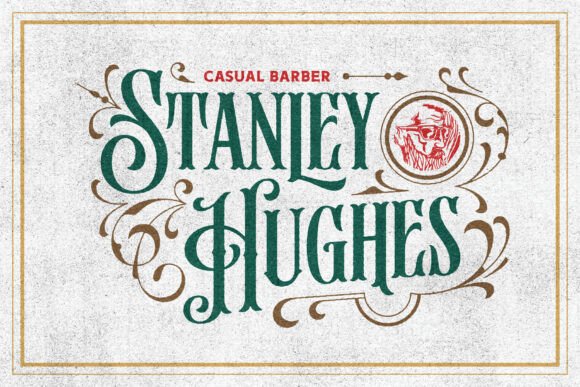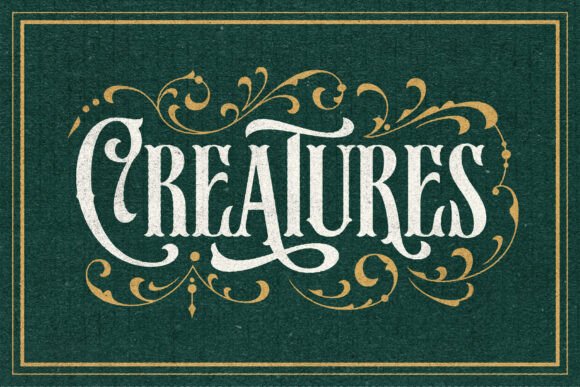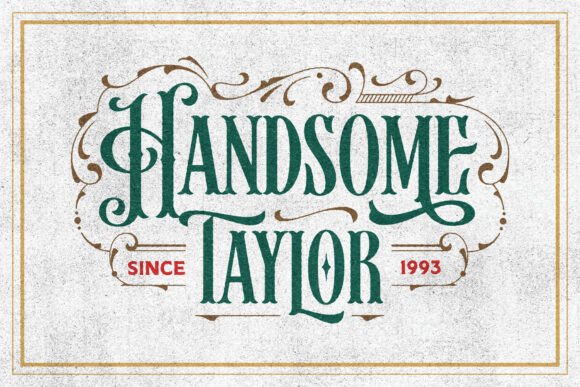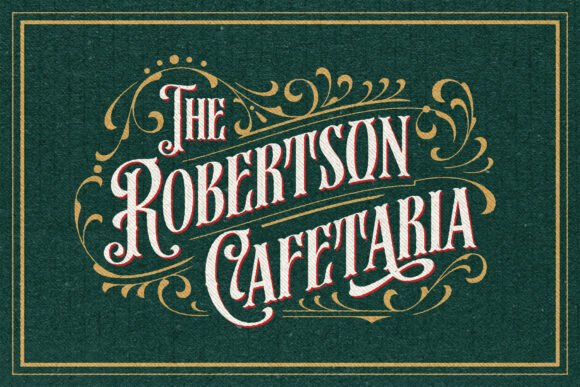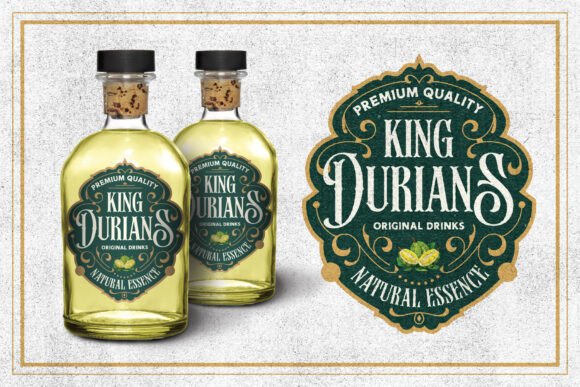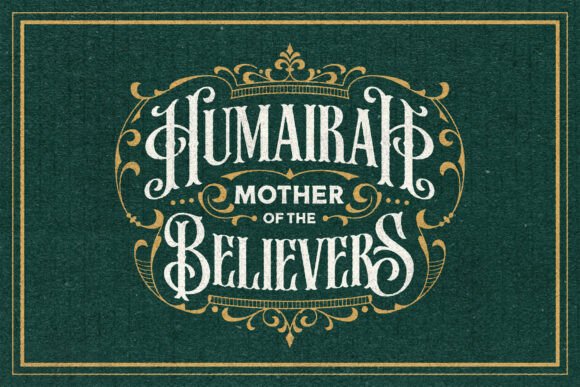
Introducing Aristoreva Font: A Timeless Victorian-Inspired Decorative Font
Are you a designer or crafter looking for a font that exudes elegance and sophistication? Look no further than Aristoreva, a decorative vintage font inspired by the timeless charm of Victorian typography and Art Nouveau from the 19th century. Collected from numerous references such as vintage signage, logos, badges, and old-fashioned graphics, Aristoreva has been meticulously crafted with medium-detailed ornaments and additional swashes, making it effortless to create elegant vintage typography.
The Inspiration Behind Aristoreva
Aristoreva’s design is rooted in the rich history of Victorian typography and Art Nouveau, a style that emerged in the late 19th century. Characterized by its ornate and intricate designs, Victorian typography was a hallmark of the era’s printing and advertising. Art Nouveau, on the other hand, was a popular art movement that influenced graphic design, architecture, and decorative arts. By combining these two styles, Aristoreva’s creators aimed to produce a font that would evoke the nostalgia and romance of a bygone era.
Design Features of Aristoreva
Aristoreva is a condensed font, specifically designed for large displays, ensuring it stands out beautifully in any project. Its medium-detailed ornaments and additional swashes make it easy to create intricate and elegant typography. The font’s design is characterized by:
- Intricate and ornate details, reminiscent of Victorian typography
- Flowing lines and curves, inspired by Art Nouveau
- Condensed letterforms, perfect for large displays and headlines
- Additional swashes and ornaments, to add an extra touch of elegance
Uses for Aristoreva
Aristoreva is a versatile font, suitable for a wide range of design projects, including:
- Labels and packaging
- Signboards and advertisements
- T-shirts and merchandise
- Book covers and magazine titles
- Decorations and home decor
Bonus Ornaments
To further enhance your designs, Aristoreva comes with a set of bonus ornaments, carefully crafted to complement the font’s Victorian-inspired style. These ornaments can be used to add an extra touch of elegance to your designs, or to create intricate and detailed illustrations.
Why Choose Aristoreva?
Aristoreva is an excellent choice for designers and crafters looking for a font that:
- Evokes a sense of nostalgia and romance
- Exudes elegance and sophistication
- Is versatile and adaptable to various design projects
- Offers a unique and distinctive look
In conclusion, Aristoreva is a beautiful and elegant decorative font, inspired by the timeless charm of Victorian typography and Art Nouveau. With its intricate details, flowing lines, and condensed letterforms, Aristoreva is perfect for designers and crafters looking to add a touch of sophistication and elegance to their designs. Whether you’re working on a poster, label, logo, or any other design project, Aristoreva is an excellent choice.